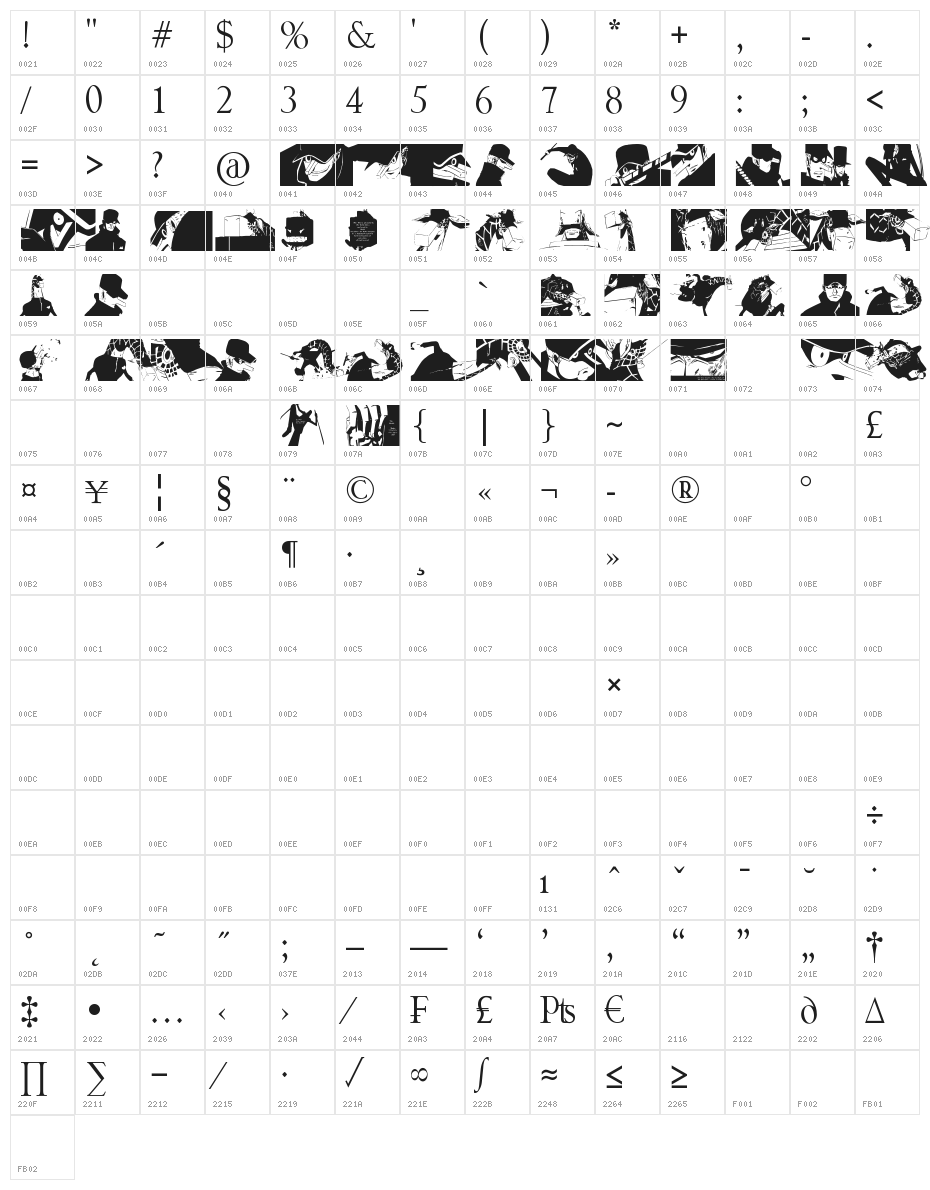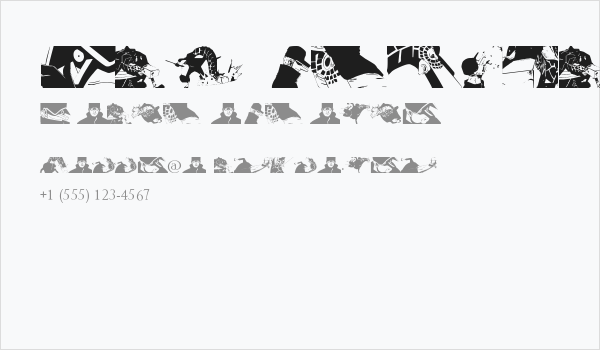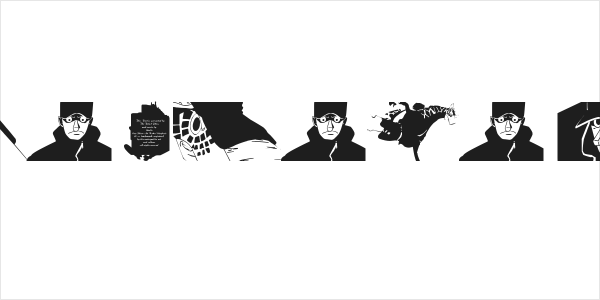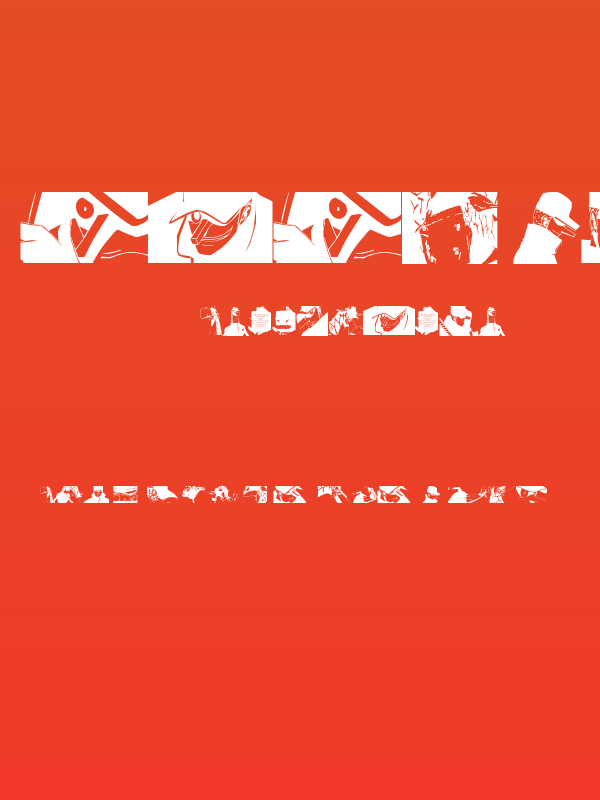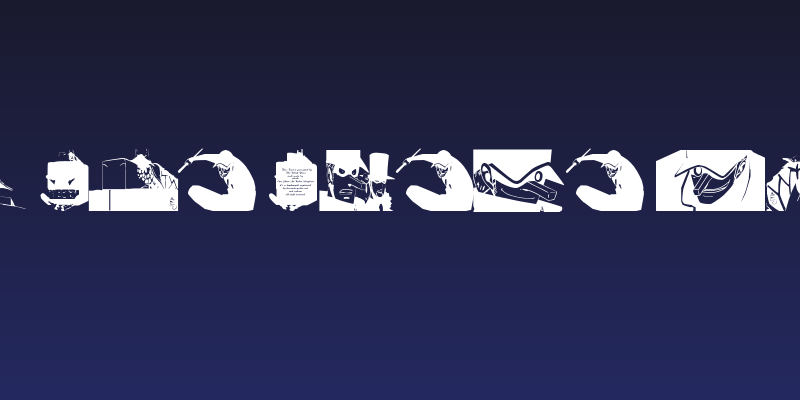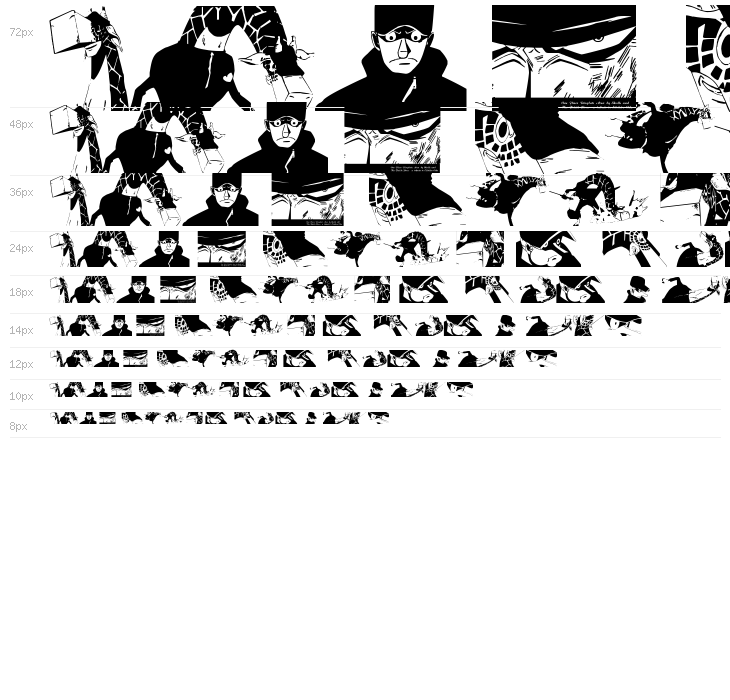
Kaku Dingbats One Piece Art One Piece Area Font
Kaku Dingbats One Piece Art One Piece Area Description
This font is a unique blend of artistic illustrations and traditional characters, featuring intricate designs within each letter. The uppercase and lowercase letters are creatively filled with detailed artwork, making each character a piece of art. The numerals and special characters, however, maintain a classic serif style, providing a stark contrast to the illustrative letters. This combination makes it visually striking and ideal for projects that require a blend of art and text.
| Use Case | Logos, Posters, Artistic Projects |
| Proposed Projects | Ideal for artistic posters, creative branding, unique invitations, and any project that benefits from a blend of art and typography. |